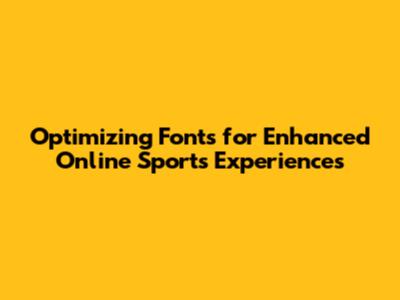
Optimizing Fonts For Enhanced Online Sports Experiences
Hey sports fans, ever stopped to think about the fonts you see when you're checking scores, watching highlights, or placing a bet online? Seriously! It might sound like a small detail, but font choice plays a huge role in how we experience the digital world of sports. Think about it: a clunky font can make a website look outdated and hard to read, while a well-chosen font can create a sleek, modern, and engaging experience. When you're constantly bombarded with information – scores, stats, player profiles, and betting odds – the right font can make all the difference in keeping you informed and entertained without causing eye strain. So, let's dive into the nitty-gritty of font optimization and how it impacts your sports-viewing experience. We're going to explore how font selection can either enhance or detract from the user experience, especially in the fast-paced world of online sports platforms. From readability and brand identity to accessibility and the technical aspects of web design, we'll cover it all. Let's make sure you're getting the best possible view!
The Crucial Role of Readability in Sports Websites and Apps
First and foremost, readability is king! Imagine trying to follow a live game on a website with a tiny, stylized font that's hard to decipher. Frustrating, right? Readability is all about how easily the text on a screen can be read and understood. In the context of sports websites and apps, where information is constantly updated and displayed at a rapid pace, good readability is non-negotiable. It's not just about aesthetics; it's about the very core of delivering information effectively. For a website or app to be successful, it needs to present a lot of data quickly and clearly, which can make or break the user experience. You need to make sure the users are able to quickly absorb the information that is important to them. If the fonts are hard to read, you can be sure that they will switch to a platform that is more friendly.
Think about live scores that are updated every minute, or player stats that flash across the screen during a game. If the font is too small, too thin, or too stylized, users will struggle to keep up with the action, and let's face it: no one wants to squint at their screen to follow their favorite team. Good readability means choosing fonts that are clear, legible, and easy on the eyes. This often means opting for fonts that are specifically designed for digital displays, as they take into account factors like screen resolution, contrast, and viewing distance. Sans-serif fonts are generally preferred for online content due to their clean lines and simplicity. These fonts are easier to read on screens because they don't have the decorative strokes (serifs) that can sometimes blur or become distracting. But sometimes this is not enough, and the platform has to do more to ensure readability. For example, consider the use of different font sizes and weights to create a visual hierarchy. Headings should be larger and bolder than body text to draw the user's attention. Key statistics or scores can be highlighted with color and bolding to stand out. White space is another important factor in readability. Ample spacing between lines of text and around different elements on the page helps to prevent the content from feeling cluttered. And that's not all; contrast also plays a vital role in readability. Make sure there is enough contrast between the text and the background to make the content stand out. The right font, combined with the right color choices, can make your site an example for all the others.
Font Choice and Brand Identity: Creating a Visual Voice
Beyond readability, font choice is a powerful tool for building a brand identity. Your brand identity is essentially your visual voice – the way you communicate your values, personality, and overall message to your audience through design elements like logos, color schemes, and, of course, fonts. Choosing the right font can help establish trust with your users and build a strong presence online. The font you select should align with your brand's personality, tone, and target audience. For instance, a sports website aimed at a young, energetic audience might choose a modern, bold font that conveys excitement and dynamism. On the other hand, a platform focusing on providing in-depth analysis and historical data might opt for a more classic, reliable font that evokes a sense of authority and credibility. Think about the big sports brands. They don't just pick any font; they carefully select fonts that reflect their unique identity. Nike uses a clean, modern font that reflects its focus on performance and innovation. Adidas often utilizes a bolder, more structured font that conveys a sense of strength and tradition. The choices these companies make have a strong influence on brand recognition, which makes them very valuable. The font is an important component of the brand's identity.
When choosing a font, consider the overall look and feel of your brand. Does the font feel trustworthy, friendly, or cutting-edge? Does it reflect your brand's values and mission? Does it connect with your target audience? Consider the consistency of your brand's identity. Using the same font across all of your platforms, from your website to your social media, can create a cohesive and recognizable brand presence. To develop a consistent brand voice, it is important to develop a brand style guide. This document outlines all the design elements of your brand, including font choices, color palettes, and logo usage. This guide will help you keep your online presence consistent. In the end, the right font is about finding the right balance between style and substance, making sure that your brand looks good and the users of your platform are able to understand it as quickly as possible.
Accessibility and Font Selection: Designing for Everyone
Let's not forget about accessibility, guys! In the digital world, it's crucial that we design websites and apps that are usable by everyone, including people with disabilities. Font choice plays a huge role in ensuring that everyone can access and understand the information presented on your site. For users with visual impairments, choosing the right fonts is even more critical. Users with low vision may struggle to read small or overly stylized fonts. Clear, readable fonts, like those mentioned earlier, are particularly important. Large, bold fonts and sufficient contrast between text and background can significantly improve readability for these users. Websites and apps should also allow users to customize font sizes and styles to suit their individual needs. Consider providing options for users to adjust font sizes or switch to a high-contrast mode for better visibility. The use of font scaling can also improve the accessibility of your platform. Make sure the text on your platform scales properly when the user changes the size. It is critical to make sure that the website is accessible to people of all abilities, so make sure to make use of features that can help achieve that goal.
When designing a sports website or app, think about the needs of all your users, not just the majority. Ensuring your platform is accessible isn't just about being inclusive; it's also about reaching a wider audience and making sure that everyone can enjoy the game. Make sure the websites and apps adhere to the Web Content Accessibility Guidelines (WCAG), which provide specific recommendations for accessible web design. Using WCAG, the team can verify that the platform meets the criteria for accessibility. Using accessible design principles, you can create a platform that is user-friendly to everyone. Inclusivity and accessibility are not a trend, but a design necessity for modern platforms.
Technical Considerations: Fonts and Web Performance
Let's get a little technical for a moment, folks. The fonts you choose can also impact your website's performance. When a user visits your website, the browser needs to download the fonts before displaying the text, which can sometimes slow down the loading time, especially if you're using a lot of custom fonts or complex font files. You have to ensure that your website loads fast so that the users can get their information quickly. Font optimization can help you achieve that goal. This involves several strategies to ensure your website's performance isn't slowed down by your font choices.
First, consider the number of fonts you're using. Sticking to a limited number of fonts will reduce the number of files the browser needs to download, which speeds up the loading time. Second, use web-optimized fonts. These fonts are specifically designed for web use and often come in various formats to ensure compatibility with different browsers. When selecting a font, make sure it is available in several formats (like WOFF and WOFF2) and make sure they are compatible with most browsers. The WOFF2 format offers better compression, which can further reduce file sizes. You can use services like Google Fonts or Adobe Fonts to host your fonts, or you can host them yourself. Using a Content Delivery Network (CDN) will ensure that the fonts are served from servers that are closest to the user's location, which improves the loading speed. Other tools can help reduce the font size to make the website load even faster. You can also use font subsets, which only include the characters that are needed for your specific website content. Finally, test your website on different devices and browsers to make sure that your font choices don't impact the performance and that it meets the expected criteria.
Best Practices for Font Selection in Sports Websites and Apps
Okay, so, now that we've covered the basics, let's look at some best practices for font selection in sports websites and apps:
- Prioritize Readability: Choose fonts that are clear, legible, and easy on the eyes, especially for large amounts of data. Stick to familiar, clean fonts like Arial, Open Sans, or Roboto. Sans-serif fonts are generally a good choice for on-screen text.
- Align with Brand Identity: Make sure your font choices align with your brand's personality, tone, and target audience. Experiment with different fonts to see which ones best represent your brand and what you want to say.
- Embrace Consistency: Use a consistent font throughout your website and app, as well as other brand materials like social media posts, to create a cohesive brand image. This helps users quickly recognize your brand. Stick to a style guide to make sure the font remains the same.
- Consider Accessibility: Design with accessibility in mind. Use large, bold fonts, ensure sufficient contrast between text and background, and allow users to customize font sizes.
- Optimize for Performance: Limit the number of fonts you use and use web-optimized fonts. Consider using font subsets or a CDN to improve loading times.
- Test and Refine: Test your font choices on different devices and browsers to ensure they render correctly and don't impact performance. Be prepared to change fonts as needed to optimize the user experience.
By following these best practices, you can create a sports website or app that is not only visually appealing but also user-friendly and accessible to everyone. The right font can make all the difference.
Conclusion: Fonts are Key for a Great Experience
Alright, folks, as we wrap up, remember that the fonts you choose for your online sports platform are more than just a stylistic choice. Fonts impact readability, brand identity, accessibility, and website performance. If you want to offer a top-notch digital sports experience, font optimization is a must. From the clear lines of a sans-serif font to the consistent branding that solidifies your presence, taking the time to consider your font choices is an investment in your user's experience. Make sure you are setting the right example and offer the best possible experience to your users. Whether you're a developer, a designer, or just a sports fan who wants to enjoy a better online experience, it's time to pay attention to your fonts! Keep those fonts optimized, and let's make the digital world of sports a more enjoyable place for everyone!